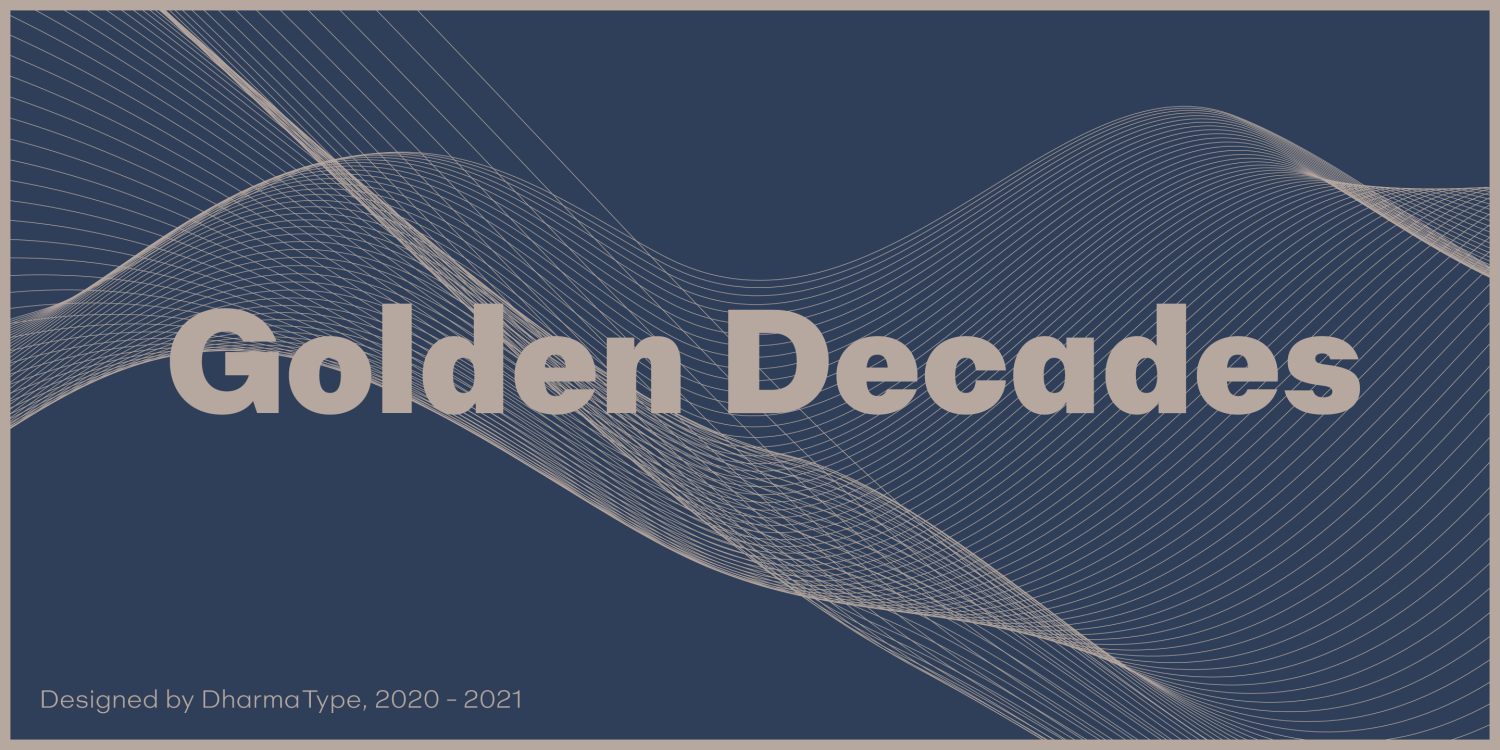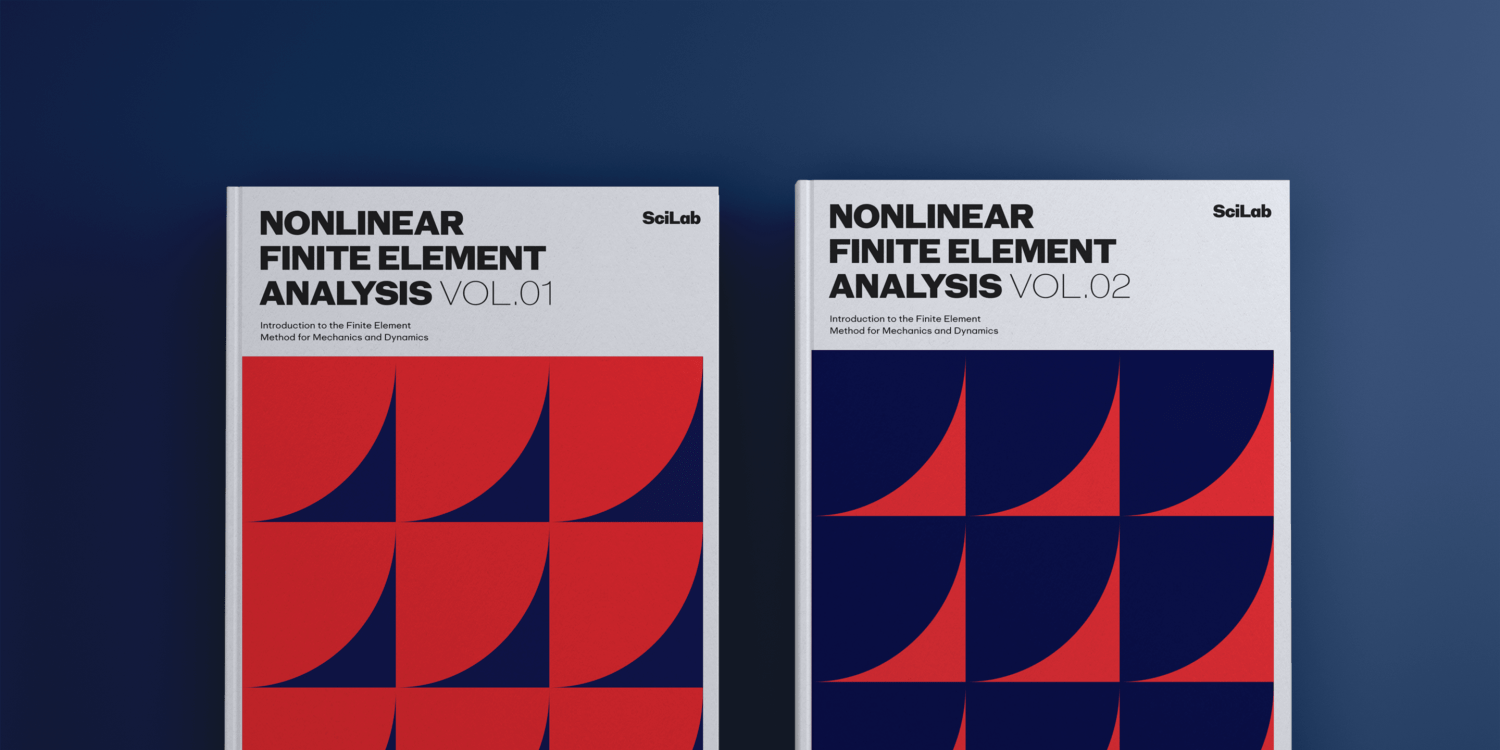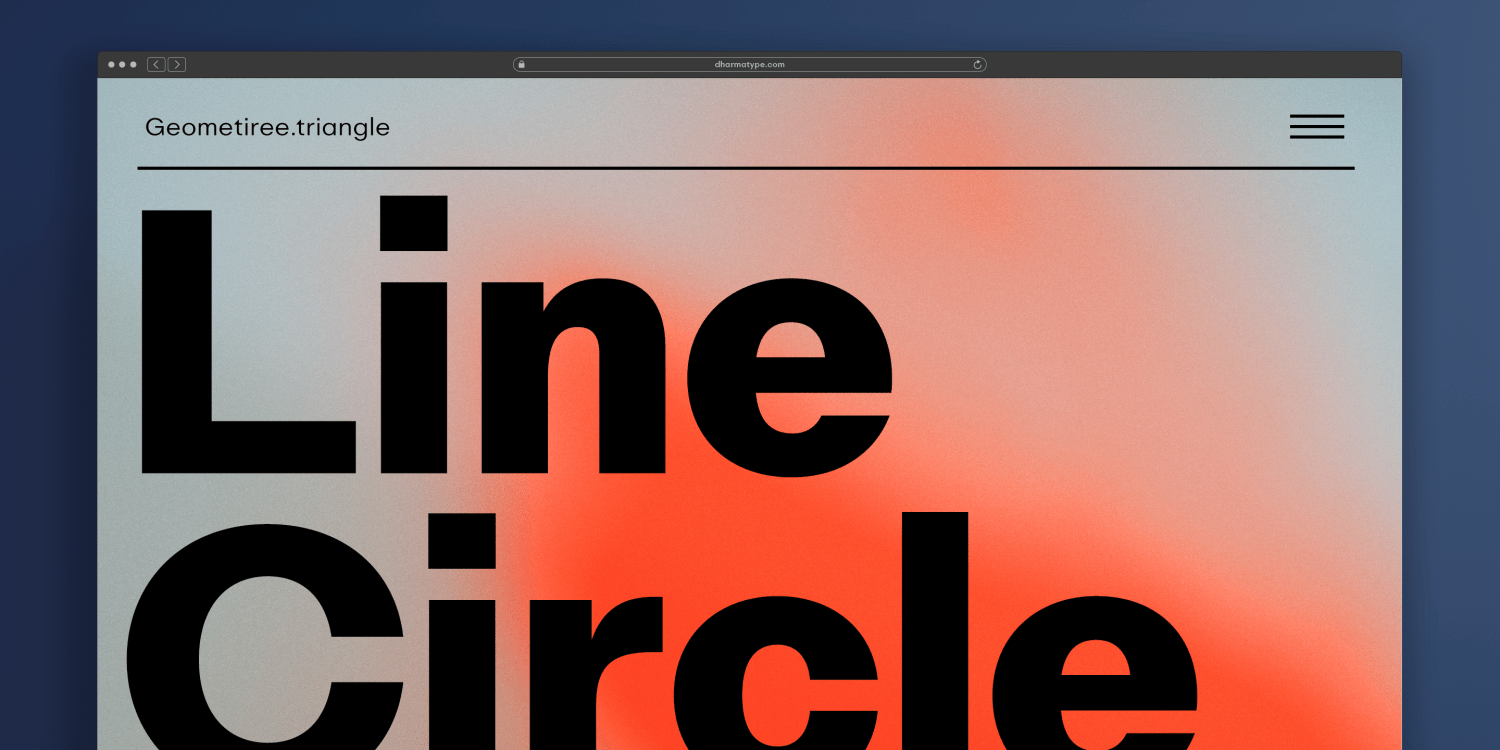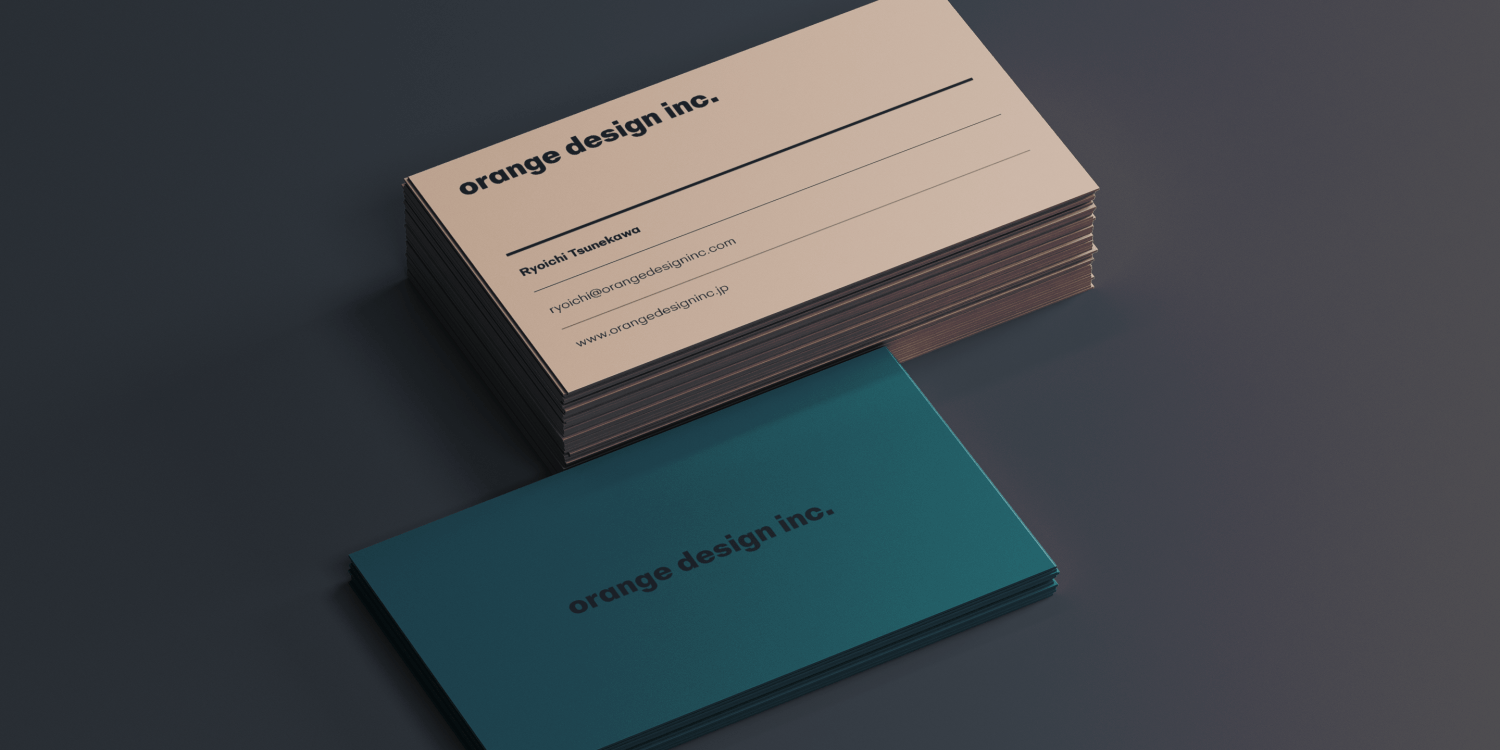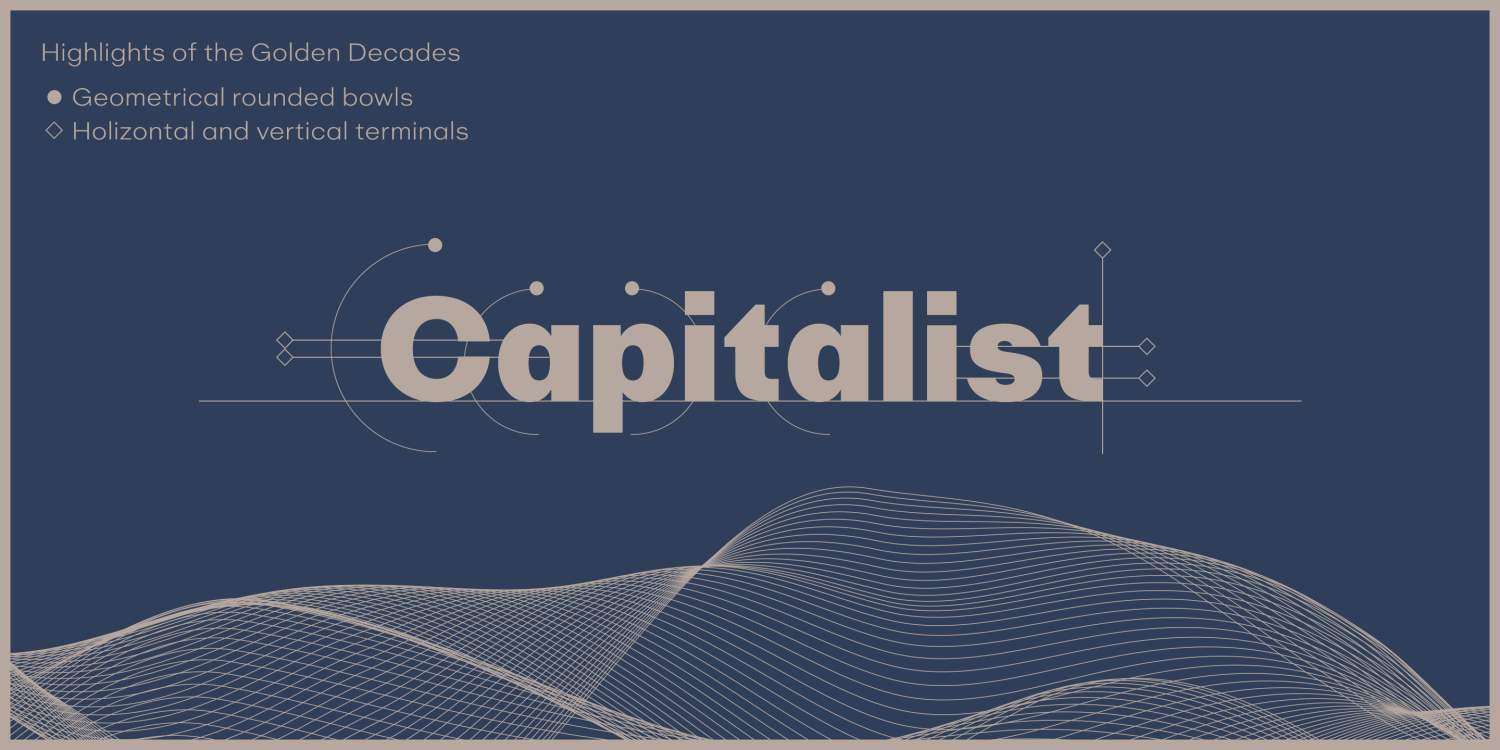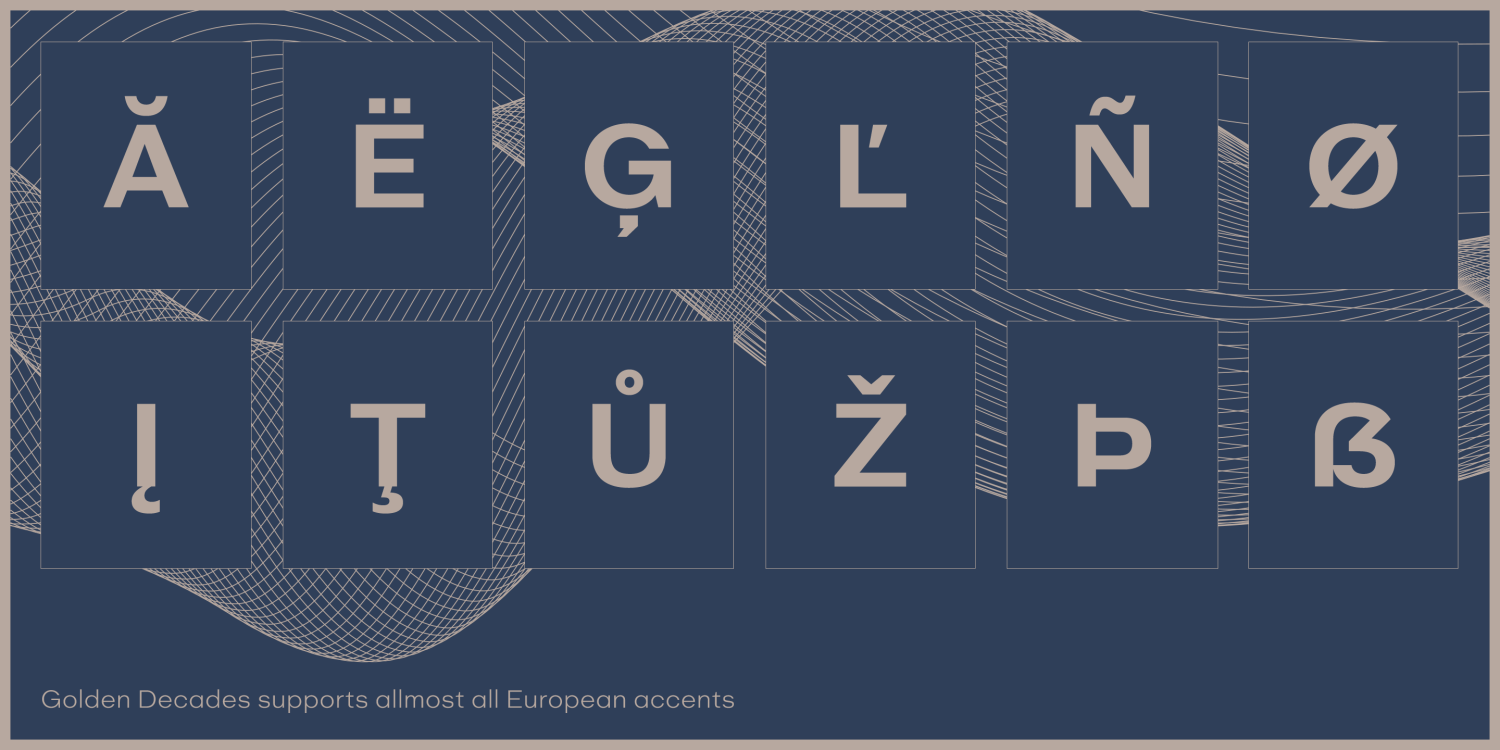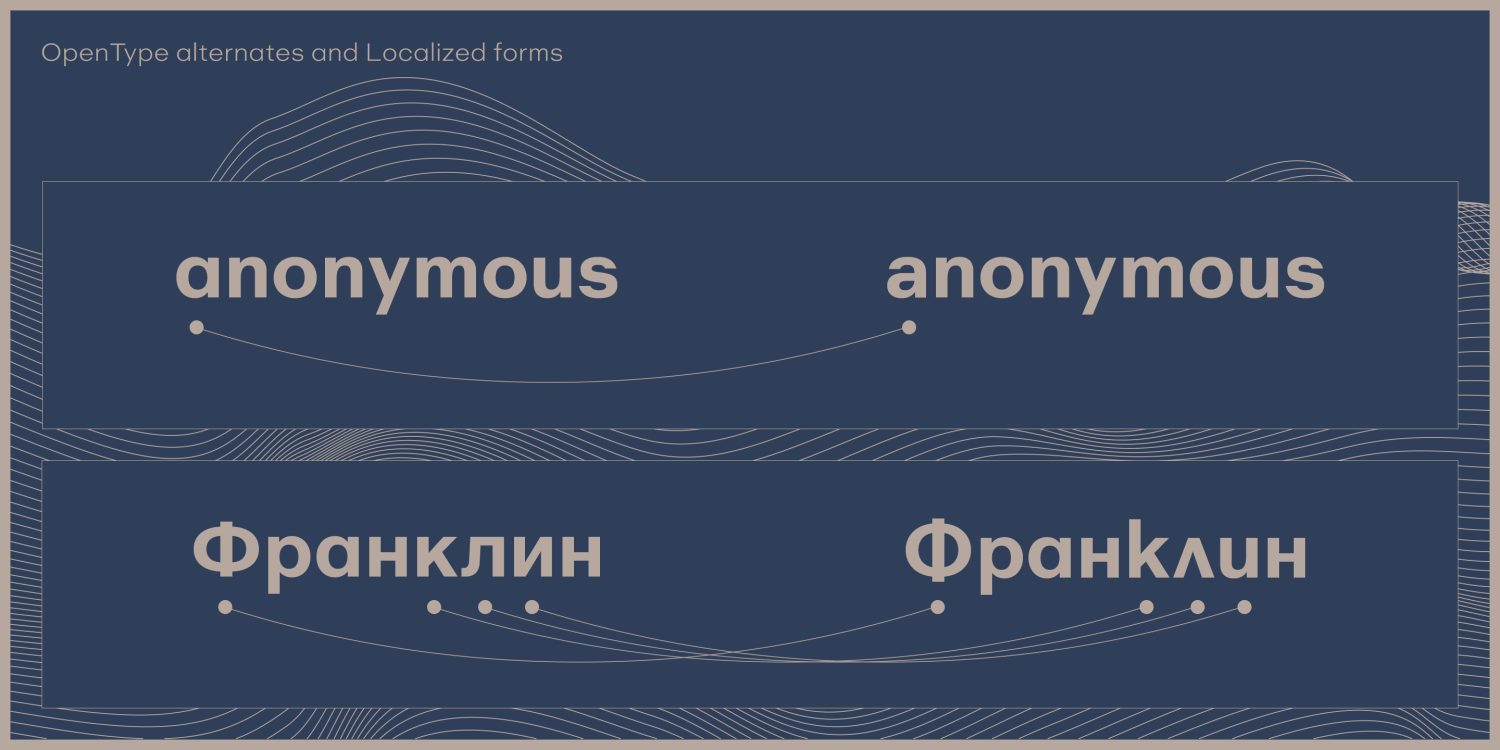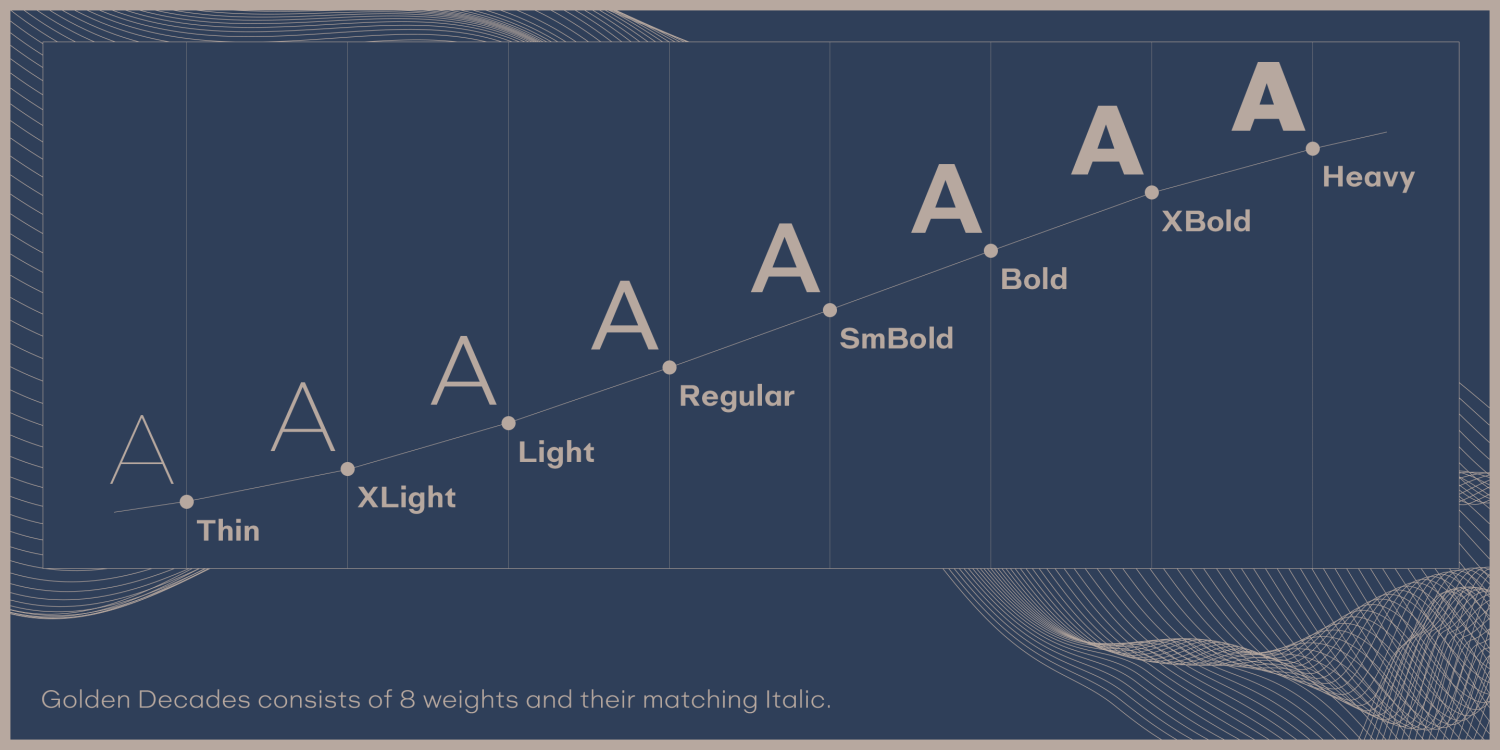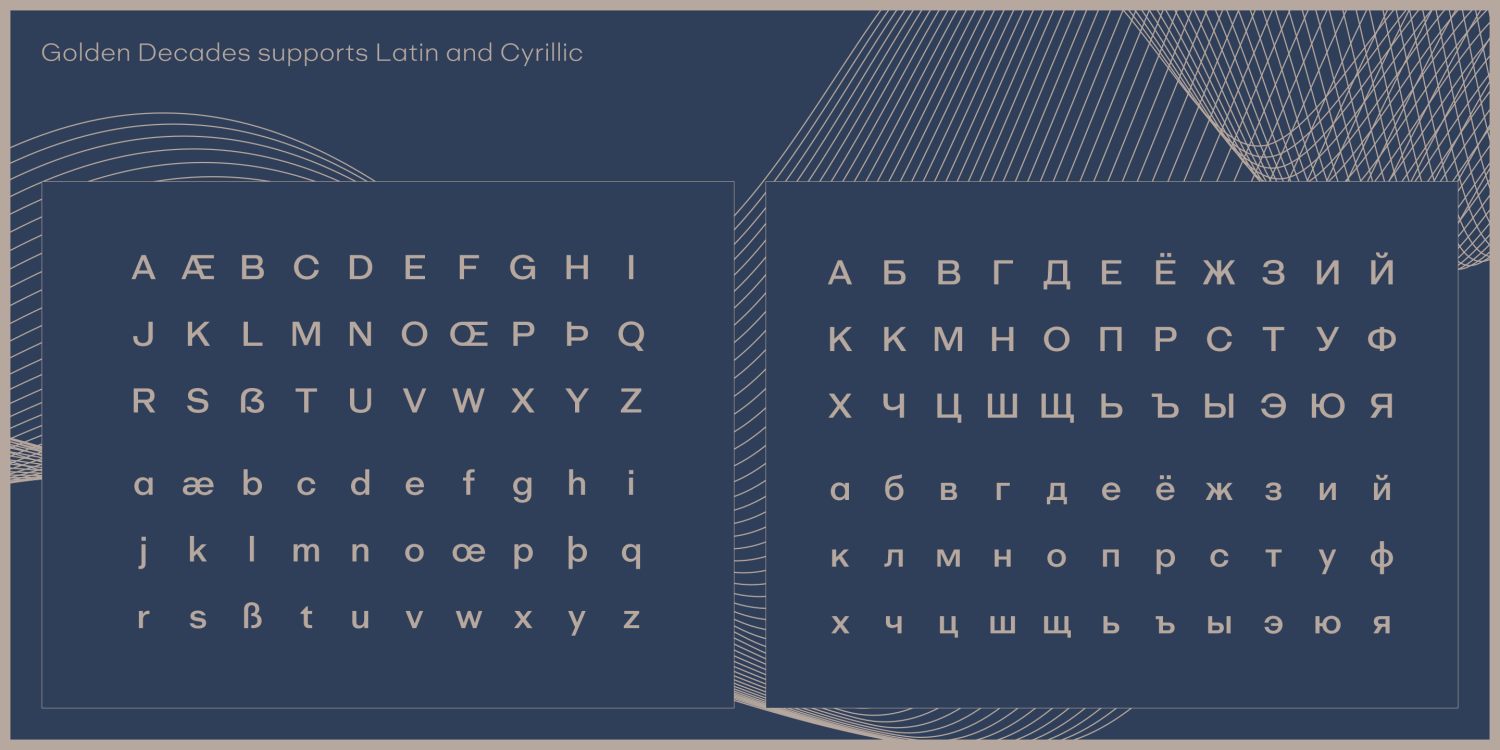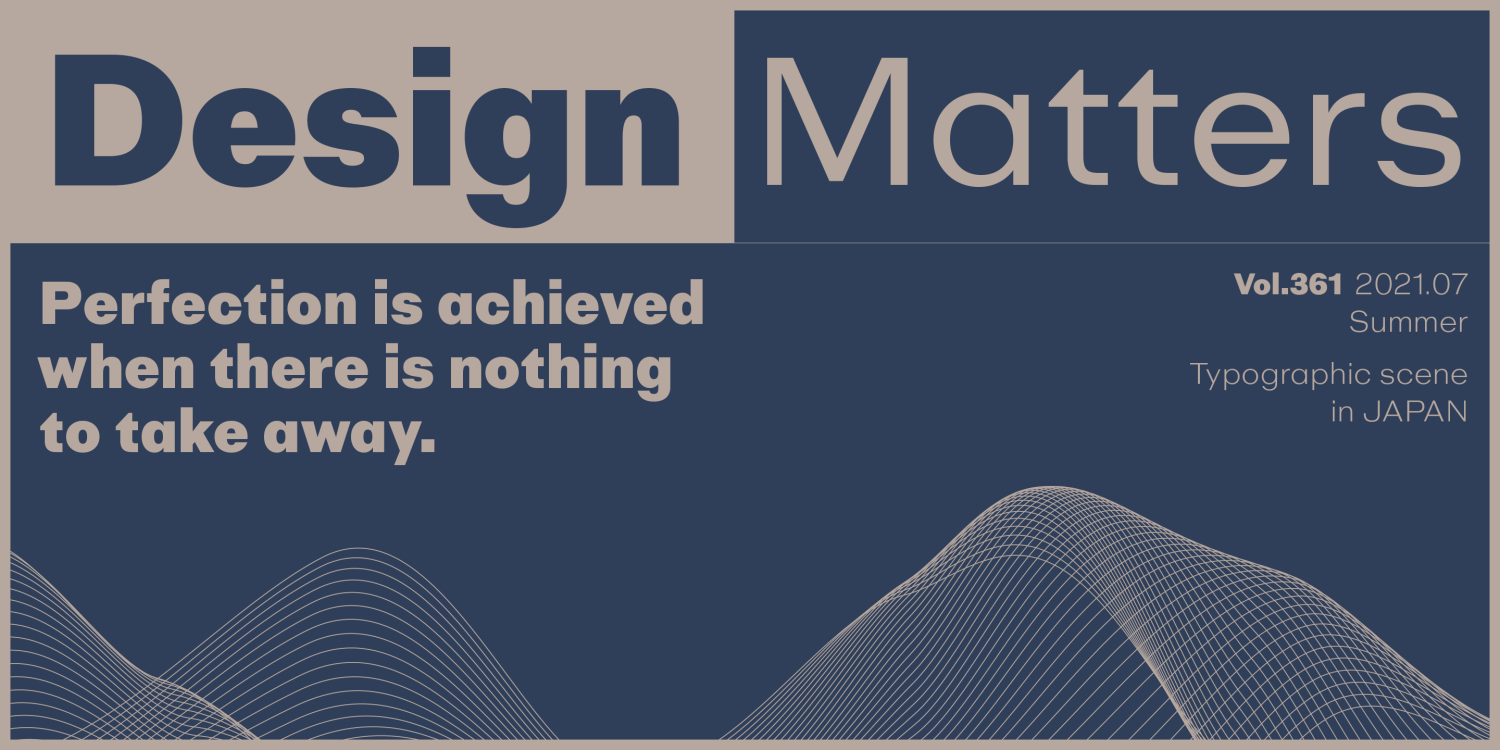
Golden Decades
Over the past decade, the type design world has become increasingly chaotic, with markets flooded by both brilliance and noise. Amid this complexity, one golden path remains clear—a path that began with the Industrial Revolution, passed through the clarity of the Swiss Style, and continues today with the enduring appeal of the sans-serif.
We call the era spanning from the "Less is more" ethos of Swiss modernism to the current "Less, but better" philosophy the Golden Decades. It was in this period that type design fully embraced modernism, prioritizing clarity, function, and form.
Rooted in these ideals, Golden Decades is a new geometric, minimal sans-serif that revives this legacy with a contemporary twist. Cool, calm, and carefully refined, it brings sharpness and neutrality to modern design. Its rounded bowls and open counters introduce a sense of rhythm and approachability, while retaining a highly functional and versatile tone.
The family includes 8 weights with matching italics, making it ideal for everything from editorial layouts to digital interfaces and branding.
Golden Decades supports an extensive range of international Latin and basic Cyrillic languages, including Basic Latin, Western, Central, and South-Eastern European scripts. It also covers major encodings such as Mac Roman, Windows-1252, and Adobe Latin 1–3, ensuring compatibility across platforms and publishing environments.
For advanced typographic expression, the lowercase “a” includes a stylistic alternate, accessible via OpenType features.